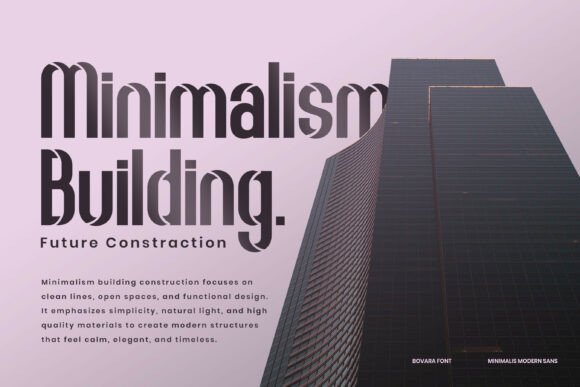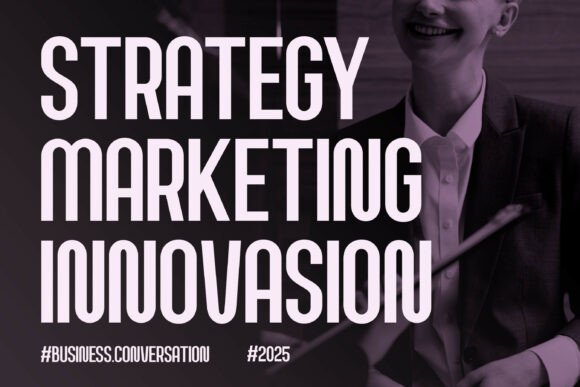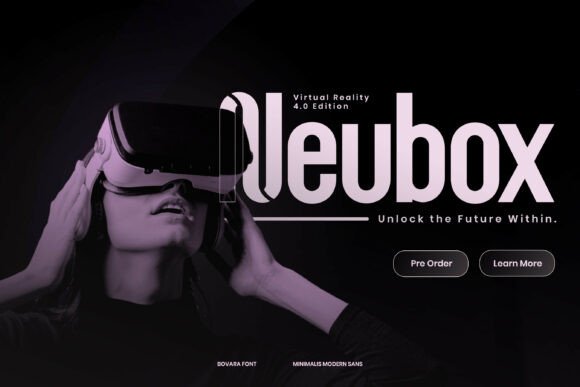
Introduction to Bovara Font
Bovara is a minimalist modern sans serif typeface crafted with strong shapes, sleek contours, and a distinctly contemporary attitude.
Its tall, condensed form paired with subtle cutout details creates a striking visual identityβ€”perfect for designs that demand confidence and style With its clean geometry and futuristic character, Bovara shines in high-impact layouts such as branding, posters, album covers, advertisements, website headers, and modern editorial designs.
Key Features of Bovara Font
Why Choose Bovara Font?
Bovara Font offers exceptional quality and versatility, making it a valuable addition to your design toolkit. Whether you’re creating for personal projects or commercial use, Bovara Font delivers professional results.